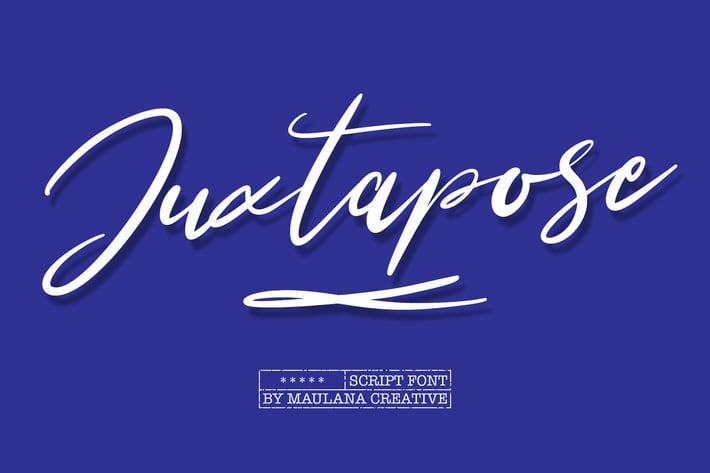
Juxtapose Script Font
Give your designs an authentic brush handcrafted feel. "Juxtapose" is perfectly suited to signature, stationery, logo, typography quotes, magazine or book cover, website header, flyer, clothing, branding, packaging design and more.